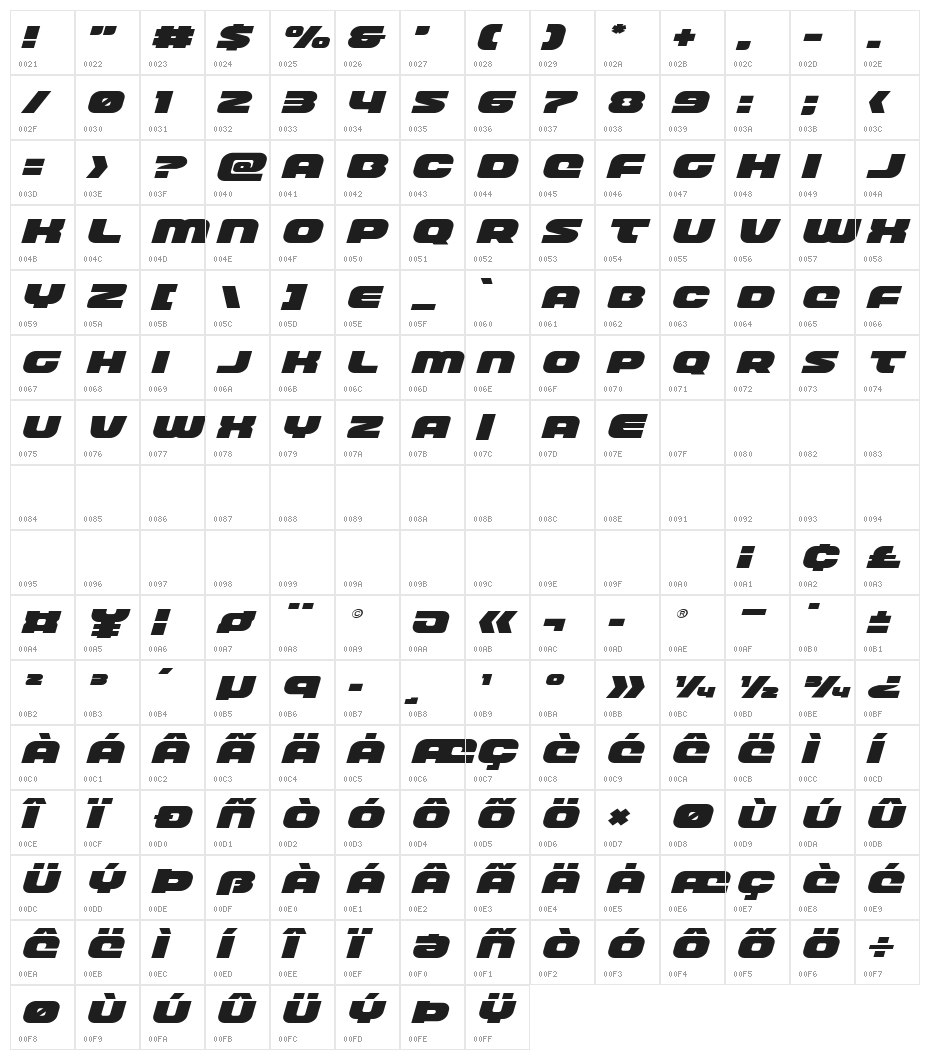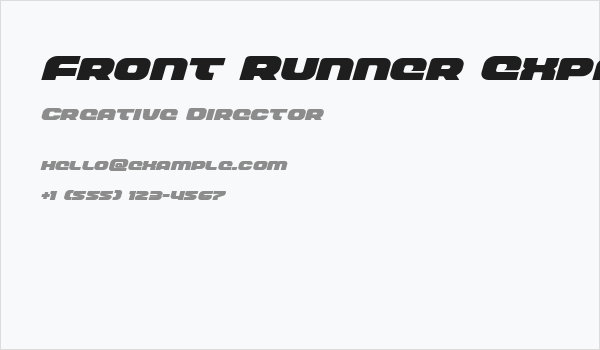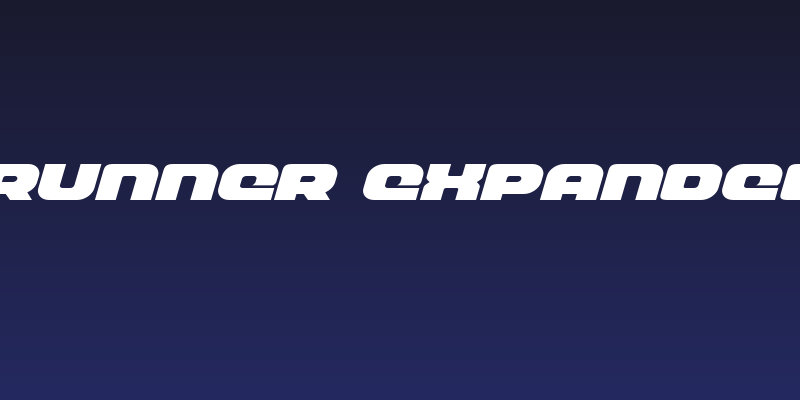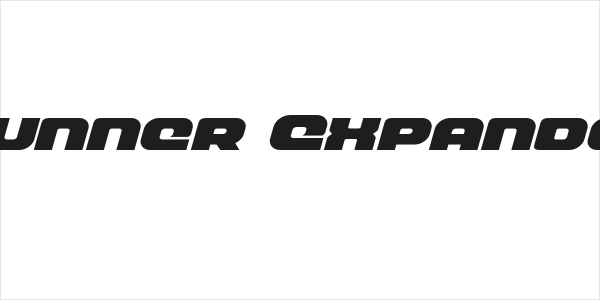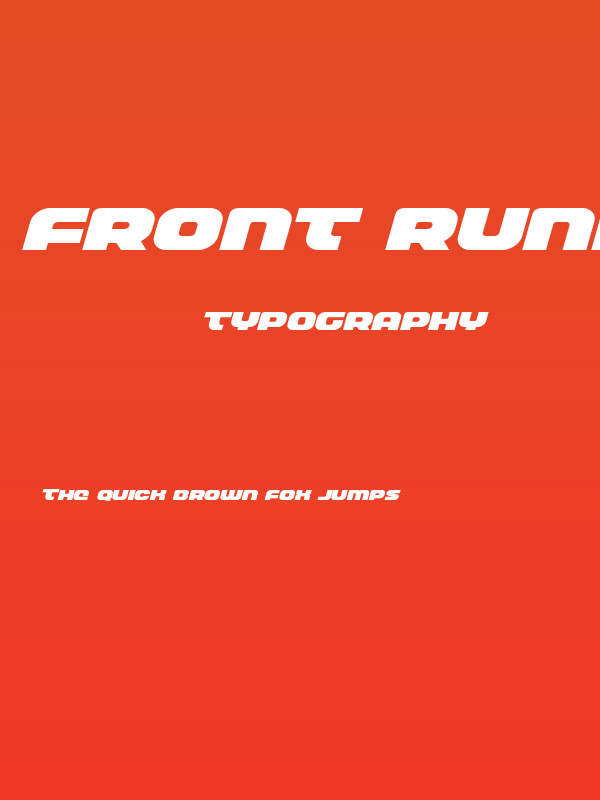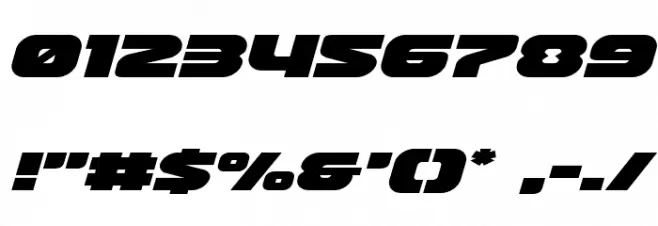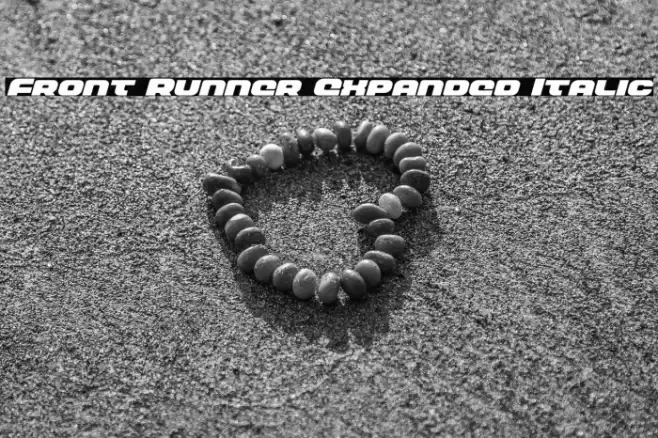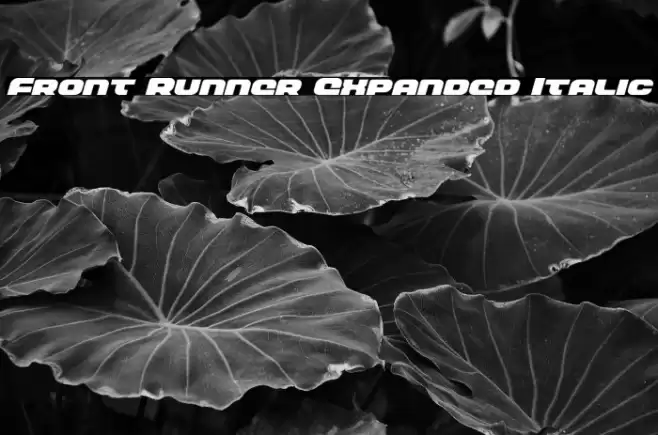
Front Runner Expanded Italic Font
Front Runner Expanded Italic Description
This font features a bold and dynamic style with an italic slant, giving it a sense of motion and energy. The characters are expanded, providing a strong and impactful presence. The design includes smooth curves and sharp edges, creating a modern and futuristic appearance. The uppercase and lowercase letters maintain consistency in style, while the numerals and special characters complement the overall aesthetic. This font is well-suited for projects that require a bold statement and a contemporary look.
| Proposed Projects | Ideal for sports branding, automotive designs, tech-related projects, and dynamic advertising. |